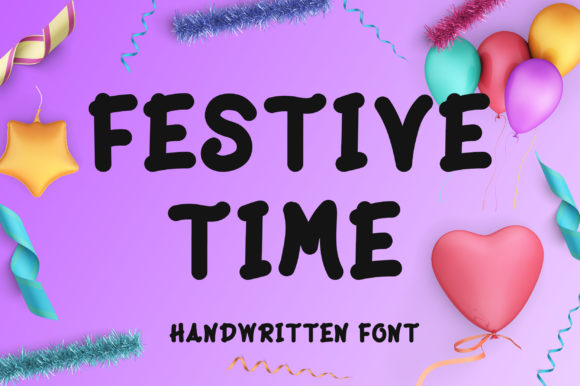
Festive Time Font: Bold Handwritten Style for Campaigns
Using Festive Time Font for High-Impact Social Media Graphics
When I was tasked with refreshing a stagnant Instagram content series last quarter, integrating Festive Time into our visual strategy completely transformed how our audience engaged with the feed. As a Script Handwritten typeface, this specific font family brought an immediate sense of warmth and approachability that standard sans serif Fonts simply could not achieve on their own. In the fast-paced environment of social media marketing, where users scroll through hundreds of images daily, you need typography that stops the thumb without feeling aggressive or overly commercial. Festive Time is a bold and friendly handwritten font that serves as that perfect visual hook, allowing me to create quote cards, announcement overlays, and story highlights that feel personal rather than manufactured.
The real test came when we applied this typeface to a promotional carousel post announcing a limited-time offer. Usually, sale graphics can feel cold and transactional, but by utilizing the organic flow of Festive Time for the primary headline, the message retained its urgency while gaining a layer of authentic human connection. This balance is critical for modern brand identity; consumers are increasingly skeptical of polished corporate aesthetics and respond better to design elements that mimic genuine handwriting. When you add this font to your favorite creative ideas, notice how it makes them come alive by softening the hard edges of digital advertising. It turns a standard "Shop Now" graphic into an invitation, making the campaign visuals feel like a note from a friend rather than a billboard.
Festive Time Typography for YouTube Thumbnails and Video Covers
Designing clickable thumbnails requires a deep understanding of legibility at small sizes, and Festive Time has proven to be an exceptional asset in my video marketing workflow. As a display-focused Script Handwritten option, it possesses enough weight to remain readable even when the image is shrunk down to a mobile preview size. Many decorative Fonts fail in this context because their thin strokes disappear against busy video backgrounds, but the bold construction of Festive Time ensures the text punches through visual noise. I recently used it for a vlog series cover set, and the consistent typographic style helped establish immediate recognition across the channel page, signaling to viewers that these videos belonged to a cohesive narrative arc.
Beyond simple readability, the personality embedded in this typeface helps convey the tone of the video before a single frame is watched. For lifestyle, DIY, or behind-the-scenes content, the energetic curves of Festive Time communicate excitement and creativity more effectively than rigid block letters. When pairing this font with video stills, I recommend using high-contrast colors and adding a subtle drop shadow or outline to maximize separation from the background. This practical application of typography principles ensures that your creative ideas maintain their impact regardless of the platform's compression algorithms. By treating your thumbnail text as a core component of your brand identity rather than an afterthought, you leverage the friendly nature of this script to increase click-through rates organically.
Pairing Festive Time Font with Clean Sans Serif for Landing Pages
While Festive Time shines as a headline element, successful campaign design relies heavily on strategic font pairing to maintain professional clarity throughout the user journey. As a distinctive Script Handwritten choice, it demands a supporting typeface that provides structural stability without competing for attention. In my recent landing page redesign, I paired Festive Time exclusively with a geometric sans serif for body copy and navigation elements. This combination allowed the handwritten font to act as a vibrant accent for value propositions and testimonials, while the neutral Fonts handled the heavy lifting of information delivery. The result was a page hierarchy that felt both festive and functional, guiding the user’s eye naturally from the emotional hook to the logical details.
This pairing strategy is particularly effective for email marketing banners and webinar registration pages where space is limited and messaging must be concise. Using Festive Time for the main event title or the primary benefit statement creates an instant focal point, while the secondary sans serif ensures that dates, times, and bullet points remain effortlessly scannable. It is crucial to remember that while Festive Time is a bold and friendly handwritten font, overusing it can dilute its impact and hinder readability. Reserve this typeface for moments where you want to inject personality and emotion, and let your workhorse fonts manage the data. This disciplined approach to typography ensures that your creative ideas come alive without sacrificing the user experience or conversion potential.
Optimizing Festive Time Script Handwritten for Mobile Ad Creatives
Mobile-first design presents unique challenges for ornate typography, yet Festive Time has consistently performed well in my paid ad campaigns due to its robust letterforms. When designing vertical video ads or square display banners, the condensed nature of mobile screens means every pixel counts, and delicate Script Handwritten styles often get lost. However, the inherent boldness of Festive Time allows it to retain its character even at reduced point sizes, making it ideal for overlay text on Reels or TikTok ads. I have found that placing this font against solid color blocks or simplified negative spaces yields the best results, ensuring the message remains crisp on smaller devices where many generic Fonts would blur or become illegible.
Furthermore, the friendly aesthetic of this typeface aligns perfectly with native social content, helping paid advertisements blend seamlessly into organic feeds. This "native" feel is essential for reducing ad fatigue and improving engagement metrics. When using Festive Time in motion graphics or animated stories, consider animating the text with a hand-drawn reveal effect to amplify the handwritten illusion. This dynamic presentation reinforces the authenticity of the message and captures attention in the first few seconds of viewing. Always preview your mobile creatives on actual devices rather than relying solely on desktop mockups; what looks bold on a 27-inch monitor might need slight tracking adjustments on a smartphone screen to ensure Festive Time delivers its full visual impact.
Beyond legality, assessing the technical features of Festive Time is vital for maximizing its design potential. Check for OpenType features such as ligatures, alternates, and swashes, which allow you to customize the typography and avoid repetitive letterforms in longer headlines. These subtle variations are what make a scripted font feel truly bespoke rather than digital and repetitive. When building a comprehensive brand kit, document exactly how Festive Time should be used versus your primary corporate typefaces. Create a style guide that specifies minimum sizes, approved color combinations, and safe zones for this bold and friendly handwritten font. By treating this typeface as a strategic business asset with clear operational guidelines, you ensure that every time you add this font to your favorite creative ideas, notice how it makes them come alive in a way that is both legally secure and visually magnificent.